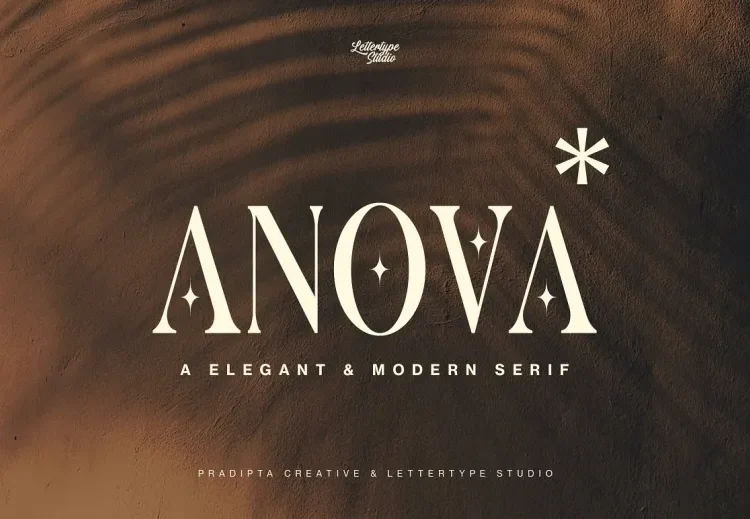
Anova Font
Anova is an elegant and fashionable serif font that effortlessly blends modern and classic aesthetics. With its luxurious and versatile design, Anova offers a range of styles that cater to various creative needs. Whether you’re working on logos, posters, clothing designs, or signage, this font brings a touch of timeless sophistication to your projects.
Ideal for high-end fashion campaigns, wedding invitations, and other upscale applications, Anova exudes a sense of luxury and refinement. Its classic and modern styles are perfect for creating a polished and contemporary look, ensuring that your brand or design stands out with an air of elegance.
With numerous style options at your disposal, Anova provides the flexibility to craft designs that are both fashionable and enduring. Its versatility makes it a valuable asset for any project requiring a touch of classic charm combined with modern flair.